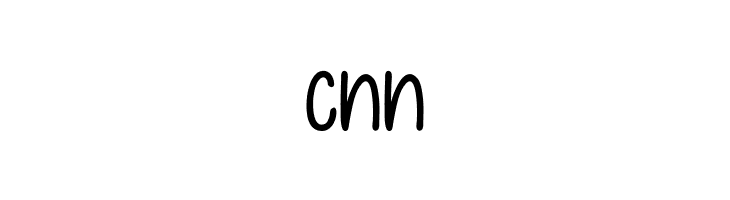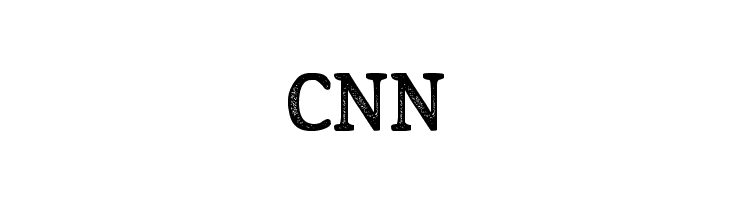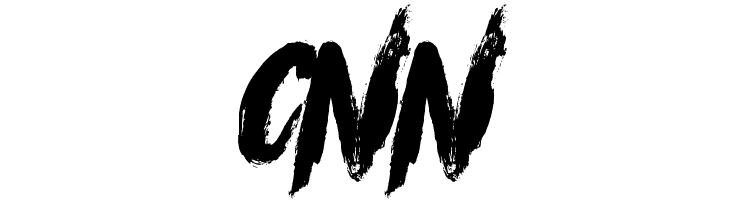
A playful, bold font with rounded, thick strokes and a friendly appearance.
A bold, brush-style font with textured, dynamic strokes.
A whimsical, hand-drawn font with flowing lines and a playful style.
A bold, distressed font with a vintage, rugged appearance.
A bold, brush-style font with dynamic, expressive strokes.
A bold, expressive brush-style font with dynamic, hand-painted strokes.
A bold, textured serif font with a vintage, distressed style.
A bold, distressed font with a vintage, weathered look.
A playful, rounded font with smooth strokes and a casual, friendly appearance.
A playful and casual script font with smooth, flowing lines and rounded edges.